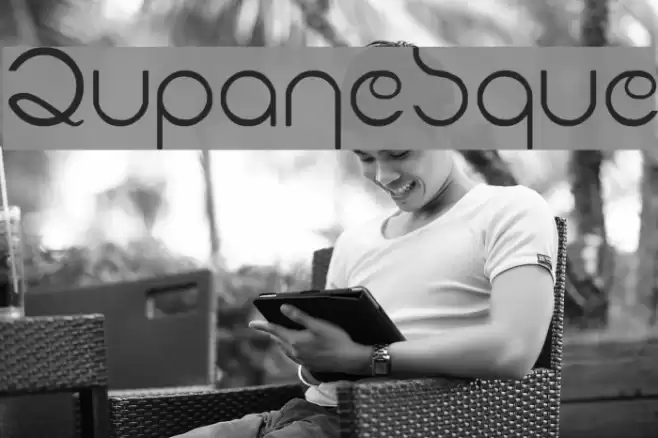
Lupanesque Font
Lupanesque Description
This font features a unique and modern design with a futuristic flair. The characters are composed of smooth, continuous lines that create a sense of fluidity and motion. The uppercase and lowercase letters maintain a consistent style, with rounded edges and a minimalistic approach. Numbers and special characters follow the same design principles, ensuring a cohesive look across all glyphs. The font's distinctiveness lies in its ability to convey a sense of innovation and creativity, making it suitable for projects that aim to stand out.
A modern, futuristic font with smooth, continuous lines and rounded edges from Uncategorized fonts.
- Proposed Projects: Ideal for tech branding, futuristic posters, sci-fi book covers, and innovative product packaging.